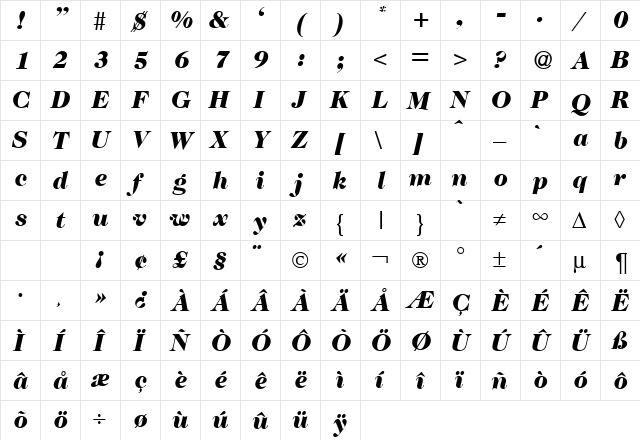
Caslon335Black RegularItalic
Design Context for Caslon335Black Typeface
Caslon335Black offers clean, dependable letterforms without strong stylistic allegiance, making it a practical choice for designers who need flexibility. The dynamic lean of this cut emphasises speed and emphasis in any layout.
Pro Tip: Try Caslon335Black for annotation and caption copy alongside an upright companion — the contrast in angle creates a dynamic but ordered typographic system.